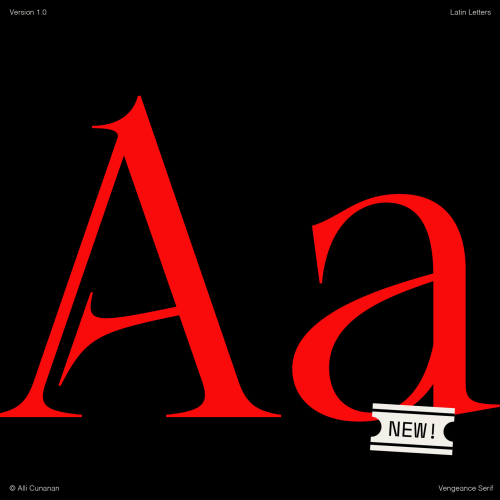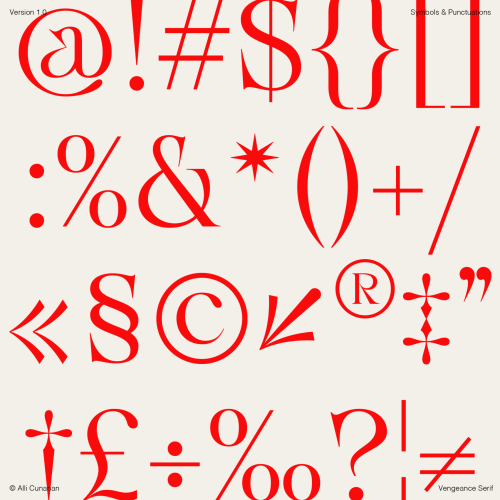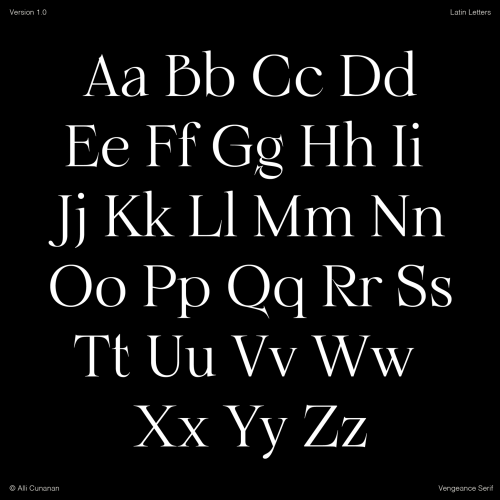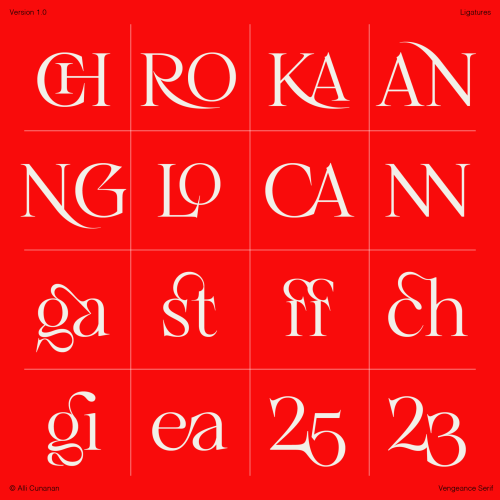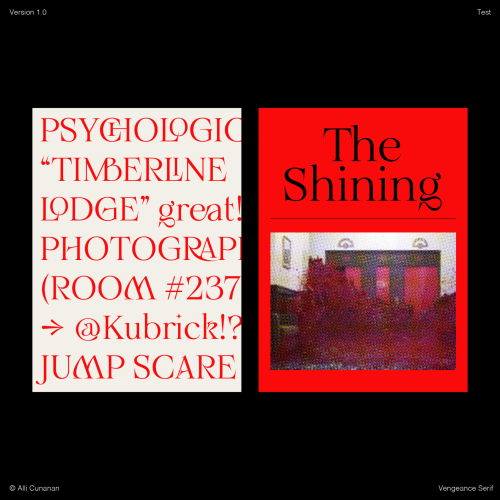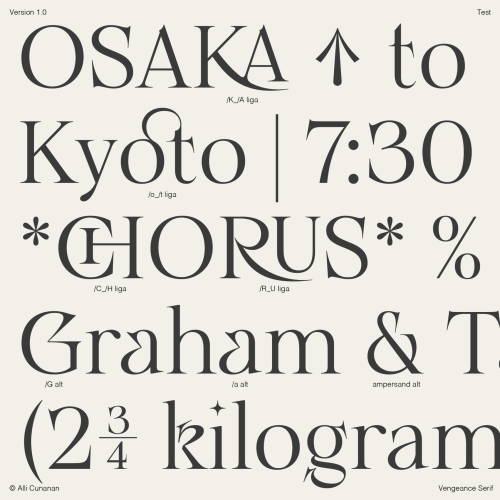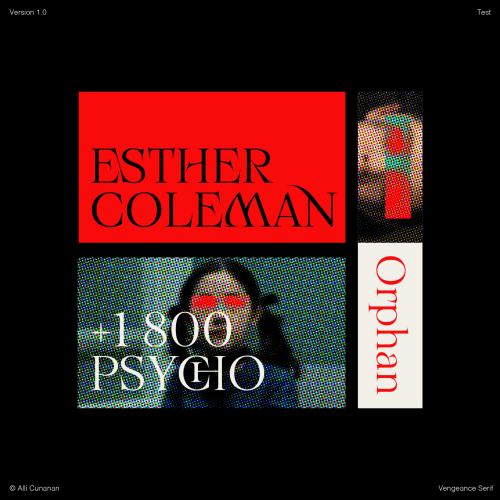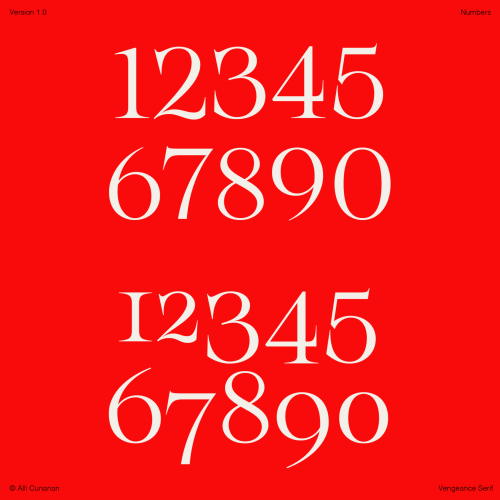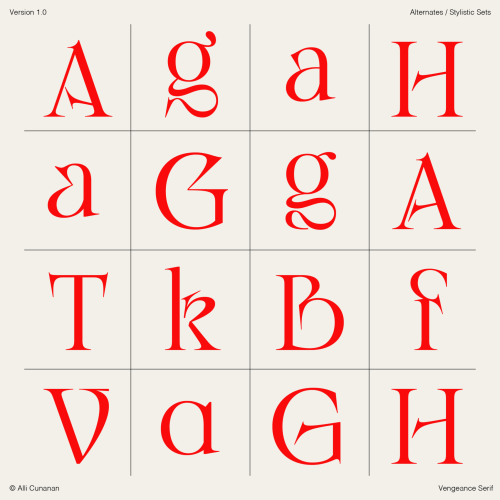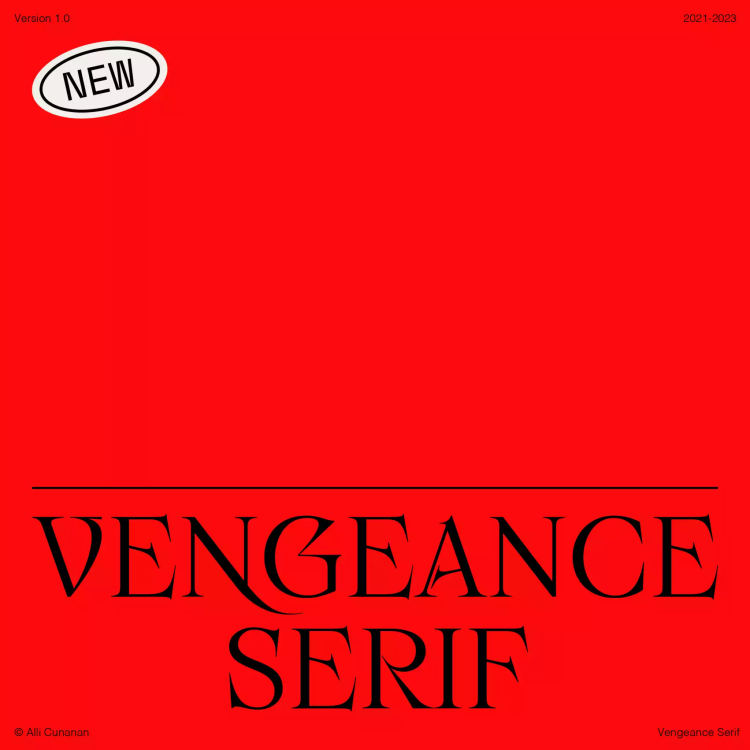
Vengeance Serif Font
Released in 2023, Vengeance is a serif display typeface characterized by its distinct sharp serifs, terminals, and beaks contrasted with delicate features, giving it an…
Released in 2023, Vengeance is a serif display typeface characterized by its distinct sharp serifs, terminals, and beaks contrasted with delicate features, giving it an assertive, persuasive personality.